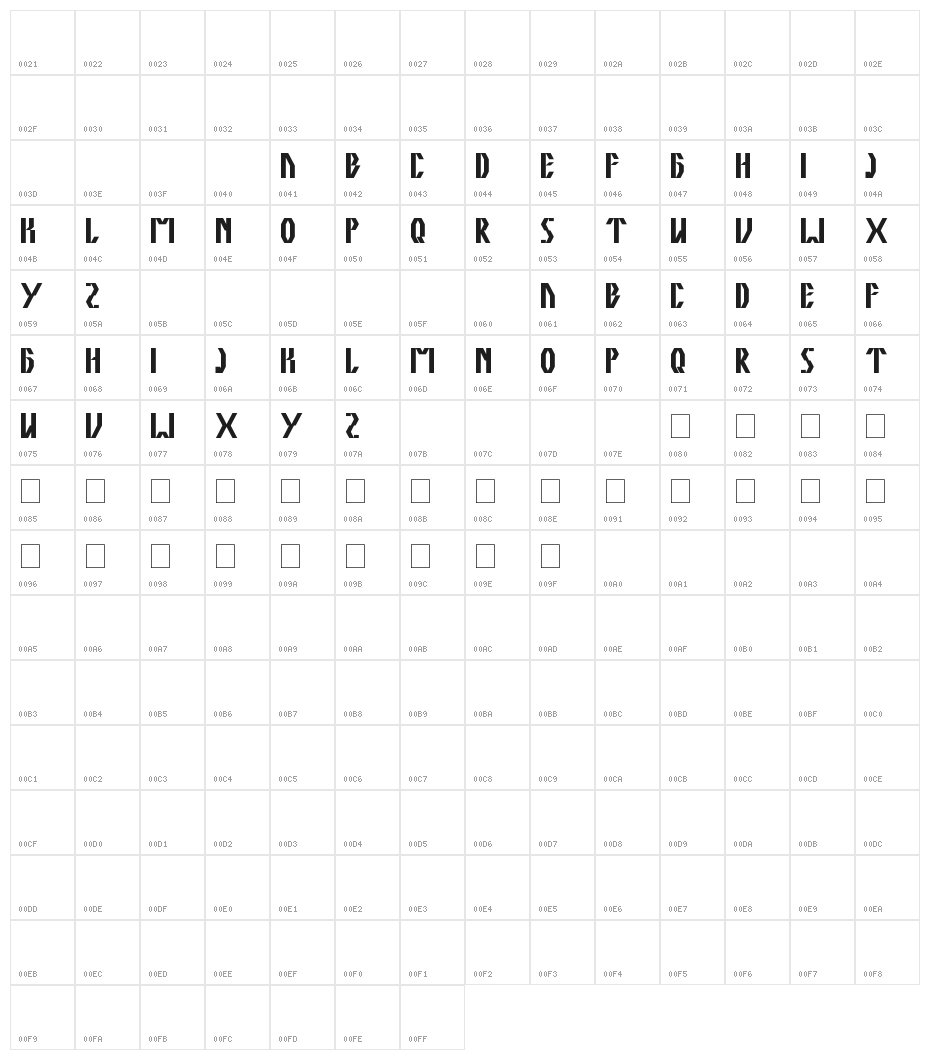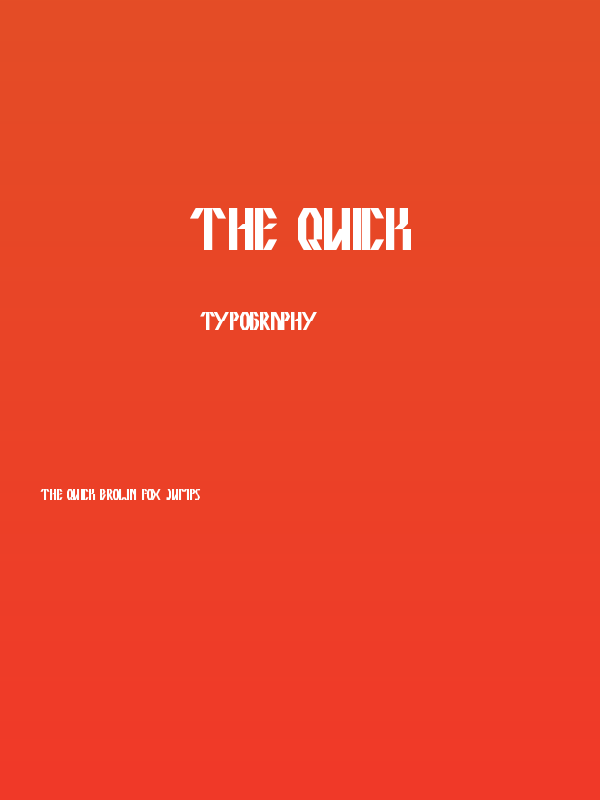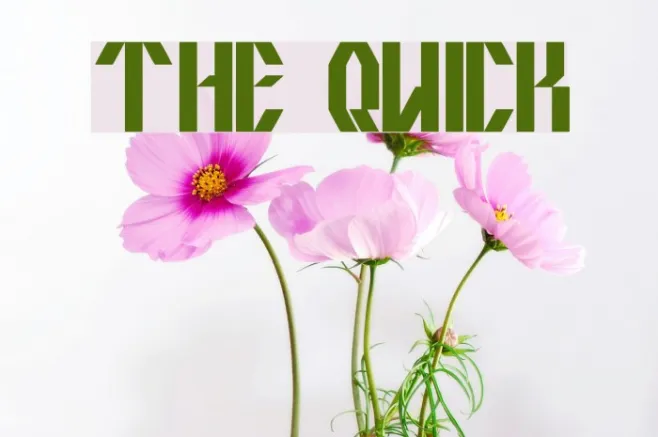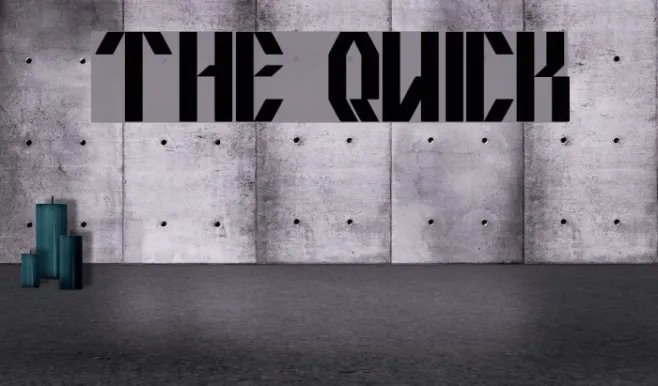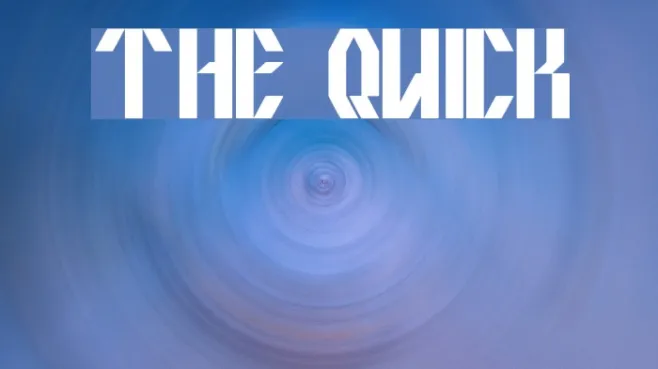
the quick Font
the quick Description
This font features a bold and geometric design, characterized by sharp angles and a blocky structure. The uppercase letters are uniform in height, with distinct cuts and slashes that create a dynamic and edgy appearance. The absence of curves gives it a futuristic and industrial feel, making it stand out in any design. The characters are tightly spaced, enhancing the compact and robust look. This font is ideal for projects that require a strong visual impact, such as posters, logos, and headlines. Its unique style can convey a sense of modernity and innovation.
| Overall Style | Futuristic, Industrial |
| Proposed Projects | Ideal for posters, logos, headlines, and any design needing a strong visual impact. |